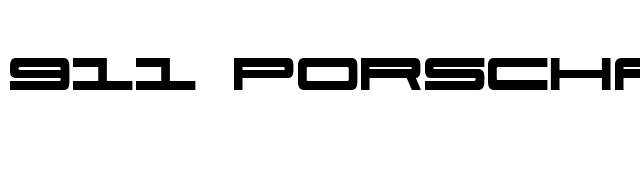
Under the protection is the wordmark of porsche. Porsche font porsche logo font along with its regular and stable glimpses porche font will be perfect for any kind of well honed designing undertakings. A font known as 911 porscha may be very much like its lettering. We have thousands of free fonts available for you.
Use it for making logos heading purposes wedding cards layouts brochure designs brief expressive texts books covers and even for printing purposes due to its high legibility.